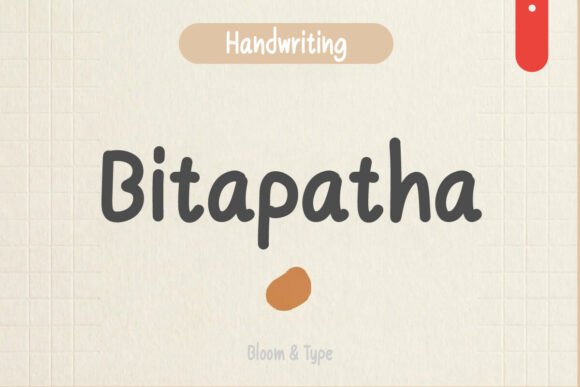
The Power of Personality: How Bitapatha Font Can Elevate Your Designs
Have you ever been working on a design project, pouring your heart and soul into it, only to feel like something’s missing? You’re not alone. I recall a particularly frustrating experience when I was designing a branding package for a client. I had nailed the color palette, the logo was on point, but the font just wasn’t doing it for me. It felt cold, impersonal, and completely disconnected from the warm, inviting vibe my client was going for. That’s when I stumbled upon Bitapatha, a soft handwritten font that instantly brought a sense of calm and friendliness to my designs.
A First Impression: What Makes Bitapatha Special
Bitapatha is more than just a font – it’s a mood, a feeling, a personality. Its slightly rounded characters and smooth, natural flow give it a simple yet expressive handwritten style that’s perfect for quotes, branding, packaging, social media posts, and creative projects that need a personal and approachable touch.
- ✨ Soft and friendly aesthetic
- ✅ Clean and readable shapes
- ✅ Unique handwritten personality
- ✅ Includes uppercase, lowercase, numbers, punctuation, and multilingual characters
- ✨ The way Bitapatha makes my designs feel warm and uplifting
- ✅ Its versatility – it works beautifully for both digital and print projects
- ✅ The font’s clean and readable shapes, making it easy to use for body text
- ⚠️ Some users might find the font a tad too rounded or soft for certain projects
- 🤔 Limited availability of stylistic alternates or OpenType features (but still a great font nonetheless)
The Story Behind Bitapatha
Bitapatha was designed with the intention of creating a font that feels warm, inviting, and personal. Its creator aimed to craft a font that would bring a sense of calm and friendliness to designs, making it perfect for projects that require a human touch.
Q: What type of projects is Bitapatha best suited for?
A: Bitapatha is perfect for quotes, branding, packaging, social media posts, and creative projects that need a personal and approachable touch.
Q: Is Bitapatha suitable for body text?
A: Yes, Bitapatha’s clean and readable shapes make it easy to use for body text, although it may not be the best choice for very long documents or small font sizes.
Q: Is Bitapatha available in multiple languages?
A: Yes, Bitapatha includes multilingual characters, making it a great choice for projects that require support for multiple languages.